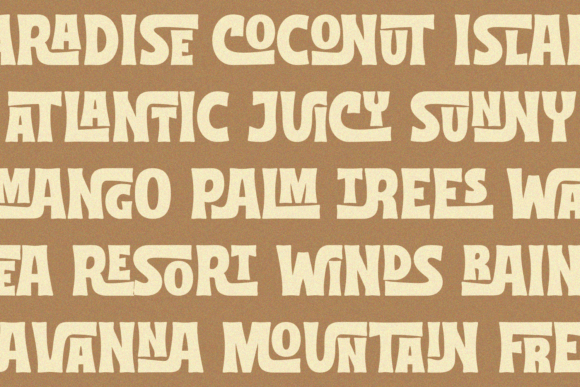
Tropical Culture Font
“Tropical Culture” is a font that looks like handwriting from the past, with a style that brings to mind tropical vibes and laid-back feelings. It’s designed to give your text a nostalgic, retro look, perfect for adding a bit of vintage charm to your designs.